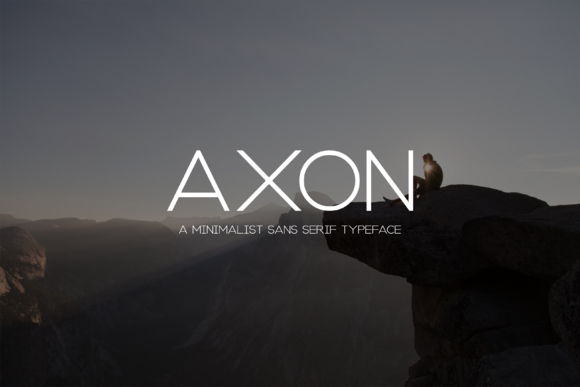
**Introducing Axon Minimalist Font: The Epitome of Simplicity and Elegance**
In a world saturated with visual noise, minimalism stands as a refreshing antidote, offering clarity, serenity, and focus. Axon Minimalist Font embodies this philosophy, presenting a streamlined sans serif family that exudes sophistication and grace. With its four distinct fonts – Axon Regular, Axon Bold, Axon Light, and Axon Ultra Light – this versatile collection caters to a wide spectrum of design needs, from clean and understated branding to eye-catching headlines and captivating marketing materials.
**Unleash the Power of Minimalism**
In an era defined by information overload, minimalism has emerged as a powerful tool to cut through the clutter and deliver messages with impact. Axon Minimalist Font taps into this trend, empowering you to create designs that resonate with audiences seeking clarity and simplicity. Its clean lines and unadorned forms command attention without overwhelming the eye, allowing your content to take center stage.
**A Font Family for Every Occasion**
The Axon Minimalist Font family is a versatile chameleon, seamlessly adapting to diverse design projects and styles. Axon Regular exudes a timeless elegance, perfect for crafting logos, headlines, and body text that demand attention without overpowering the message. Axon Bold makes a striking statement, ideal for emphasizing key points, creating bold headlines, and capturing the attention of readers.
For designs that call for a touch of lightness and airiness, Axon Light and Axon Ultra Light come to the fore. These delicate fonts lend a graceful presence to invitations, wedding stationery, and branding materials, evoking a sense of refinement and sophistication. Whether you seek to convey a minimalist aesthetic or infuse your designs with a touch of understated luxury, Axon Minimalist Font has you covered.
**Experience the Beauty of Simplicity**
With Axon Minimalist Font, less is truly more. This font family is a testament to the power of simplicity, offering a refreshing departure from the often-overwhelming world of design. Its clean lines, uncluttered forms, and versatile nature make it an indispensable tool for designers seeking to create timeless and impactful designs. Embrace the minimalist movement and elevate your creative projects with Axon Minimalist Font.
**Discover Endless Creative Possibilities**
Axon Minimalist Font opens up a world of creative possibilities, empowering you to express your unique vision with clarity and precision. Its versatility extends beyond traditional print media, seamlessly adapting to digital platforms and web design. Craft elegant website layouts, design captivating social media graphics, and create stunning presentations that leave a lasting impression. With Axon Minimalist Font as your creative ally, the possibilities are endless.